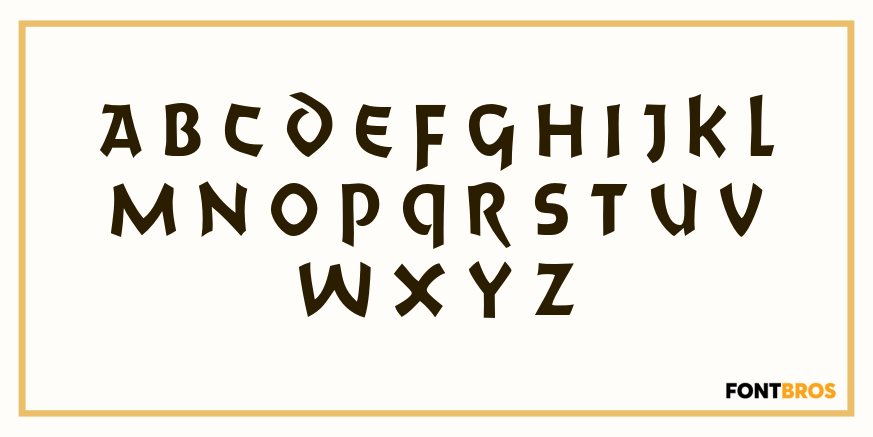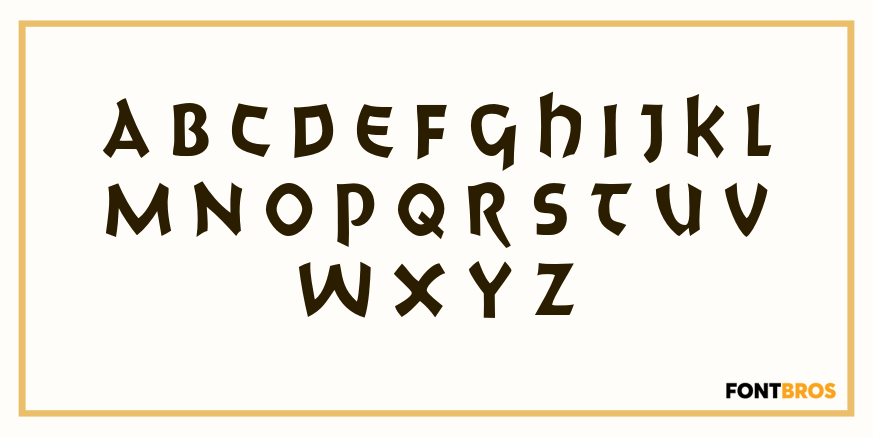
Mozart
This font was originally called Mozaik.
The lowercase postion has a few alternate characters in place of the basic ones.
Mozart includes 200 glyphs.
Mozart by Solotype